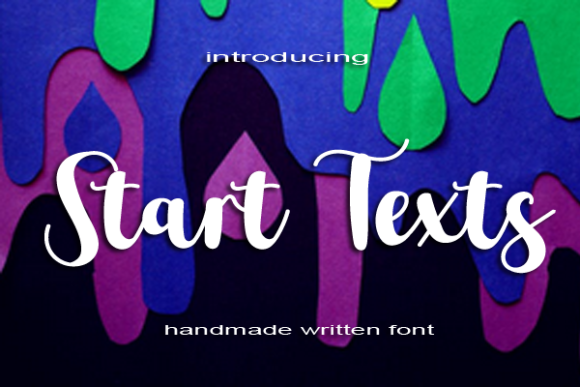
About Start Texts Font
Start Texts is a whimsical script font with a relaxed theme, featuring a lovely style. No matter the topic, this font will be an incredible asset to your fonts’ library, as it has the potential to elevate any creation.